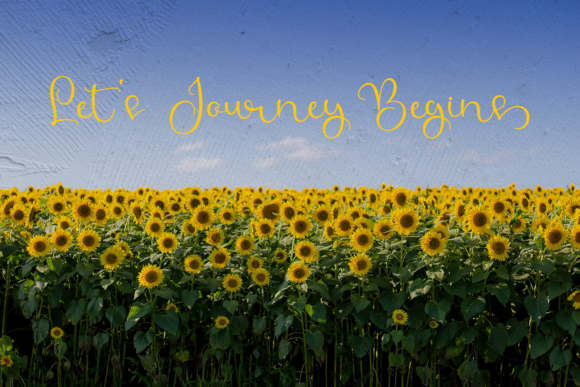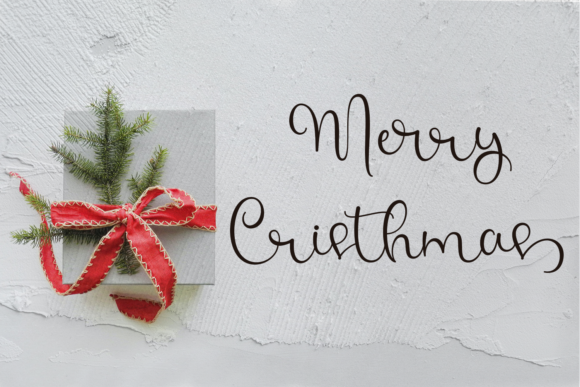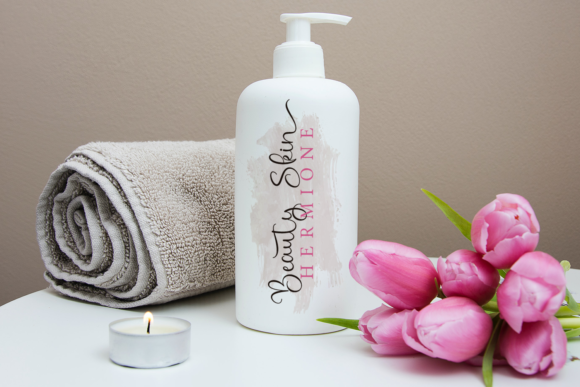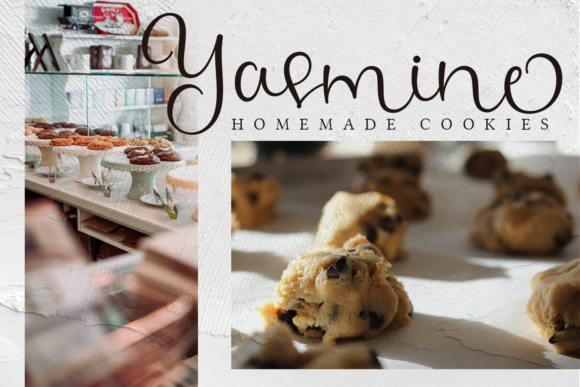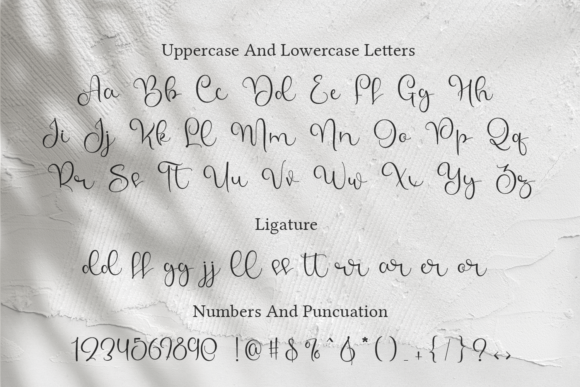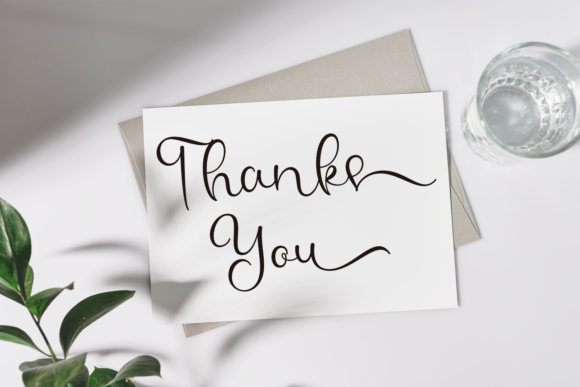
Holland Font
About Holland Font
Holland is a lovely and delicate script font that exudes elegance and class. This font is PUA encoded which means you can access all glyphs and swashes with ease!